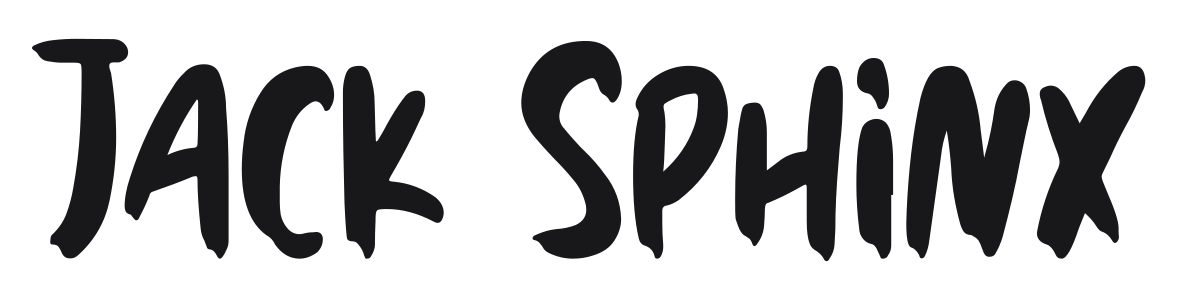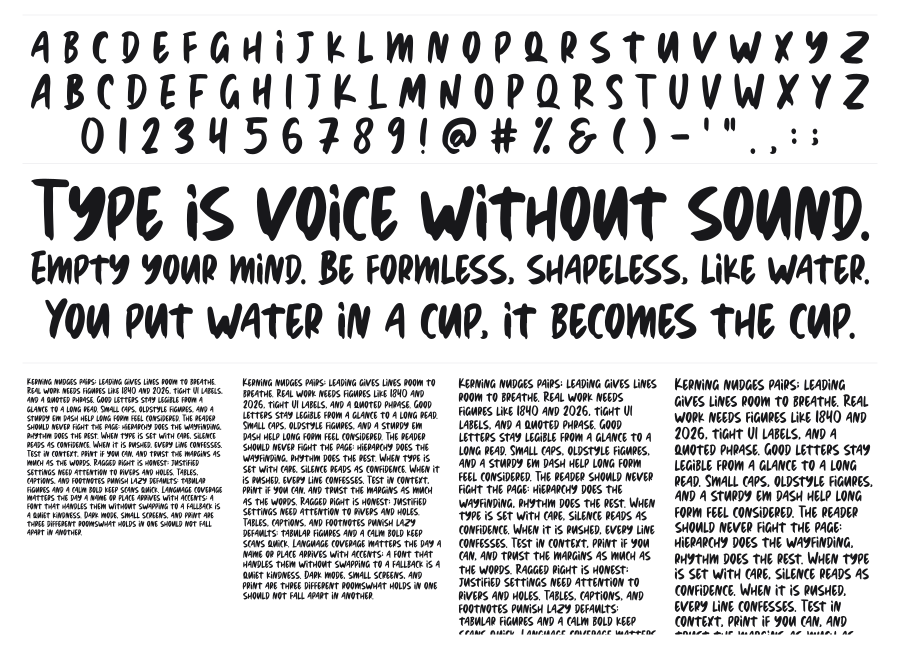
Jack Sphinx
Jack Sphinx is a bold, all-caps brush script with a loose, hand-painted energy. The heavy strokes vary naturally in thickness and angle, giving each character a spontaneous, expressive feel that reads as confident rather than sloppy. Strong at large sizes for posters, labels, and branding that needs personality.